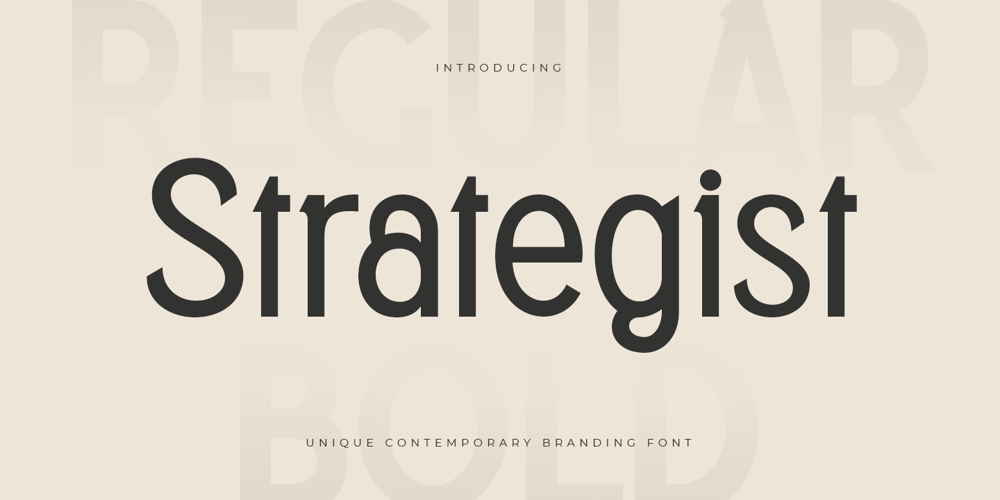
Strategist
Strategist font
Strategist Font Family was designed by Zamroni Hamzah and published by Sensatype Studio. Strategist contains 2 styles and family package options. An Unique Contemporary Branding Font that we created special for elegant branding needs, with unique shape will be ready to add value of your brand. It so nice to leverage designer or product owner that need solutions to make their design look more stylish and modern. And specially for Strategist font, We prepared any characters to help you create unlimited variations for your creative needs.Strategist Unique Contemporary Branding Font ready with: Ready with Regular and Bold version Preview as a inspirations that you can do with Strategist font Ready with Lowercase and Uppercase characters Wish you enjoy our font. 🙂